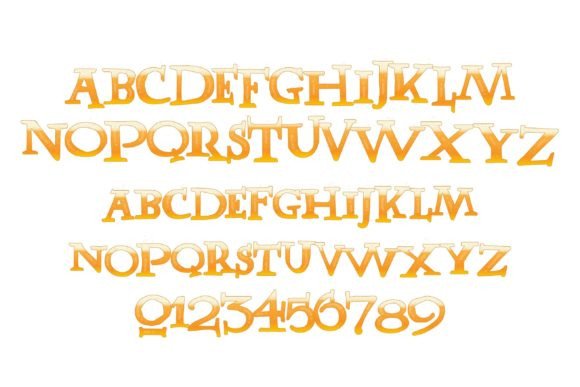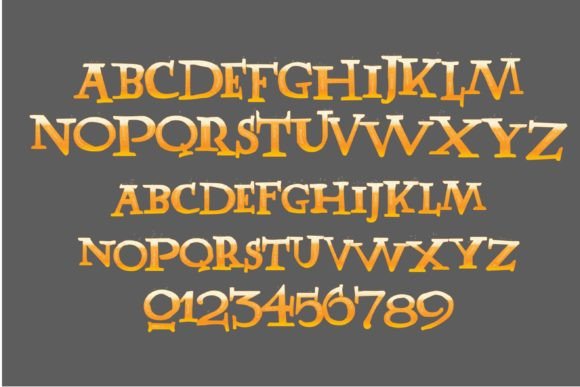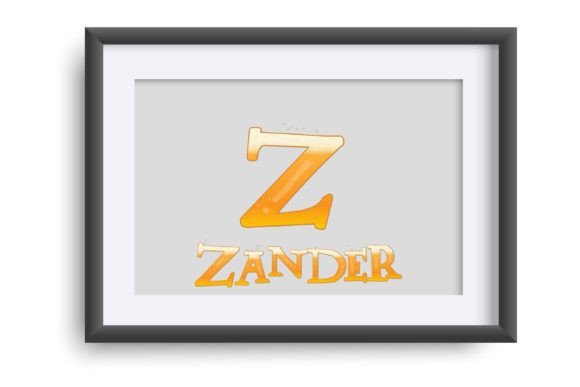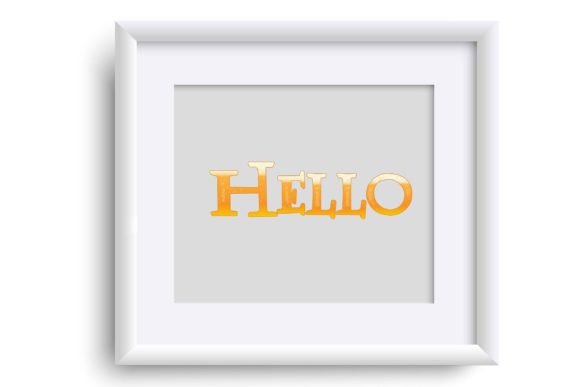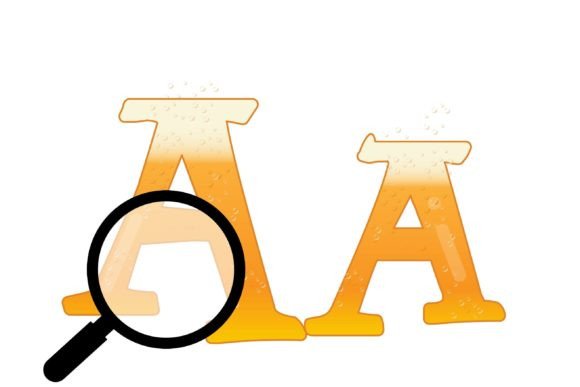
Better Beer Font: Elevate Your Designs with Golden Beer-Like Lettering
Are you a designer or crafter looking to add a touch of warmth and sophistication to your projects? Look no further than the Better Beer Font, a stunning full-color font featuring golden beer-like lettering. In this article, we’ll explore the unique features of this font, how to install and use it, and the various programs that support full-color SVG fonts.
What is the Better Beer Font?
The Better Beer Font is an OpenType full-color (SVG) font that boasts a beautiful, golden beer-like lettering style. Its unique design makes it perfect for crafters and designers who want to add a touch of elegance and whimsy to their projects. Whether you’re working on a logo, signage, or packaging design, this font is sure to impress.
When using the font in compatible programs, you’ll see the golden beer-like lettering in full color. However, please note that color fonts may show as black in non-compatible programs or when previewing the font in the program’s preview window.
What is an OpenType Full-Color (SVG) Font?
An OpenType full-color (SVG) font is a type of font that uses SVG (Scalable Vector Graphics) technology to display full-color graphics. Unlike traditional fonts that display as a single color, full-color fonts like the Better Beer Font can display a wide range of colors and gradients, making them perfect for designs that require a high level of visual detail.
Benefits of Using the Better Beer Font
The Better Beer Font offers several benefits to designers and crafters, including:
- Unique and eye-catching design: The golden beer-like lettering style is sure to grab attention and add a touch of sophistication to your projects.
- Versatility: The font can be used in a wide range of programs and applications, from logos and signage to packaging and branding.
The Better Beer Font is a stunning full-color font that offers a unique and eye-catching design perfect for designers and crafters. With its easy installation process and compatibility with a range of programs, this font is sure to become a favorite in your design arsenal. Whether you’re working on a logo, signage, or packaging design, the Better Beer Font is a great choice for adding a touch of warmth and sophistication to your projects.